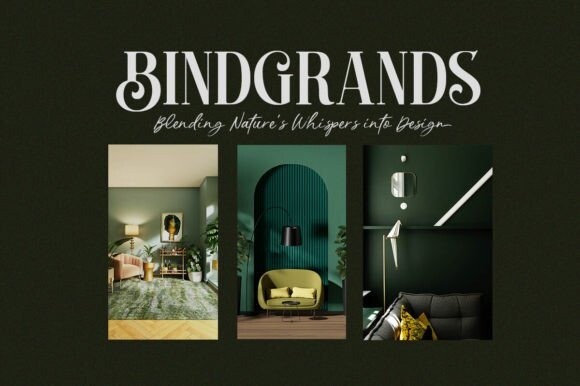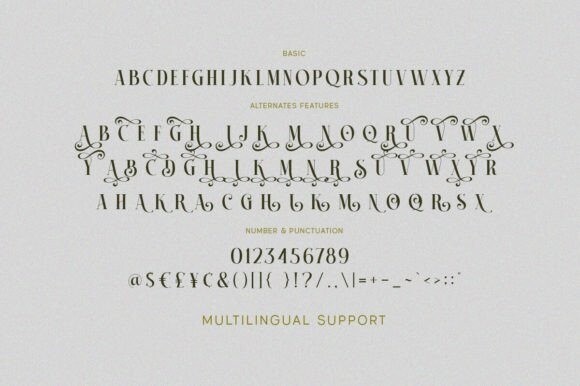
Britnes Grade Font
Britnes Grade Font is a stylish serif font, known for its clean and neat design, enhanced by intricate swirl swashes, making it truly unique. This font is exceptionally well-suited for logos and various formal applications including invitations, labels, magazines, books, greeting cards, wedding invitations, packaging, fashion, makeup, stationery, novels, and all types of advertising materials.